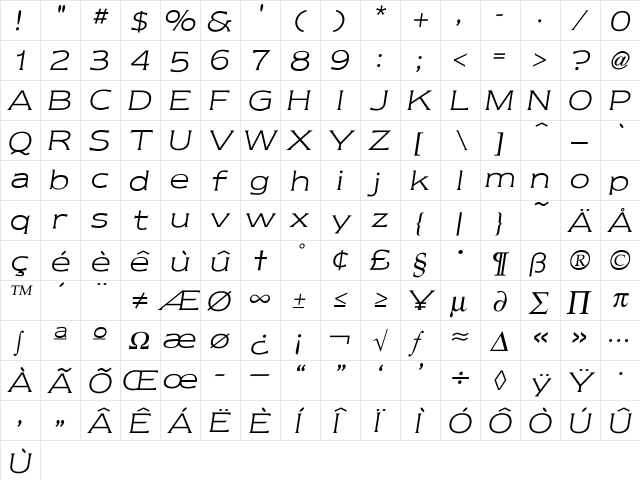
Newtext Regular Font Preview
Newtext Regular
Newtext Regular Font Details
Design Context for Newtext Typeface
Newtext takes a measured approach to typography — its balanced proportions and neutral character make it a reliable workhorse for both digital and print work.